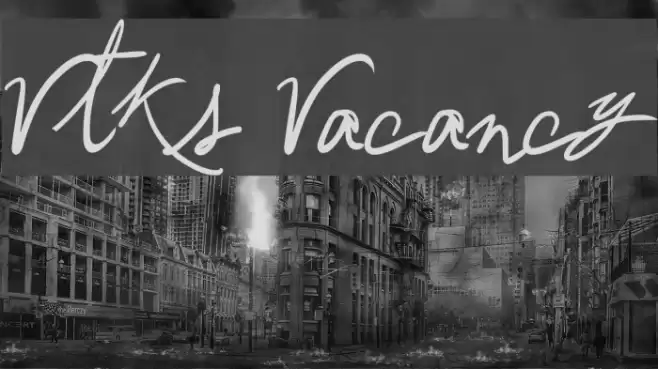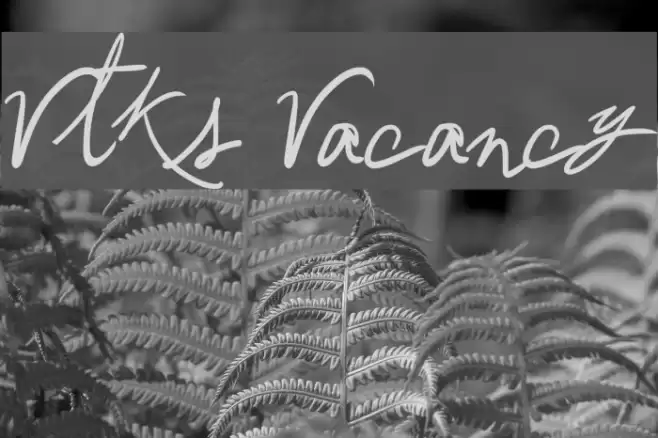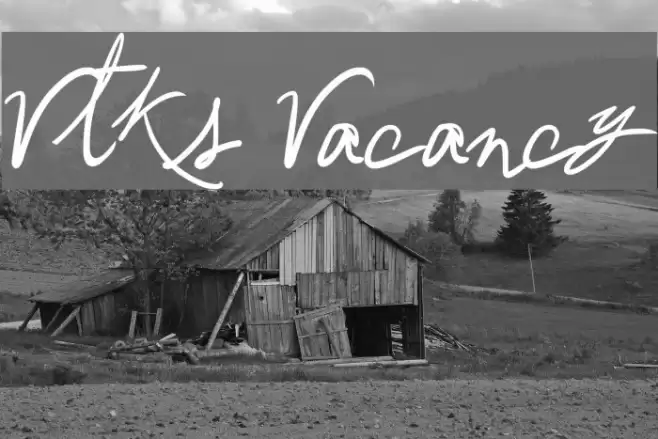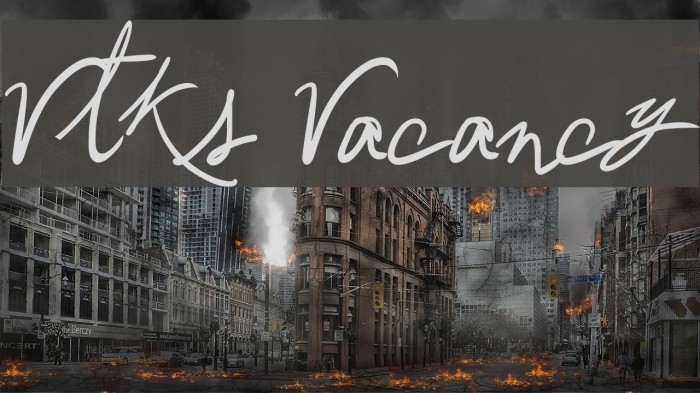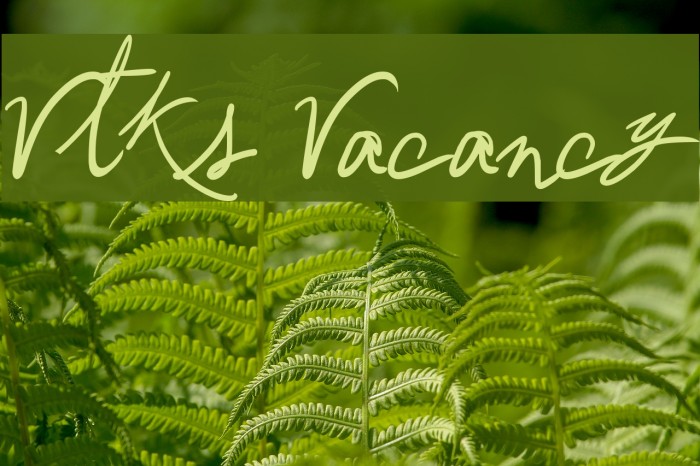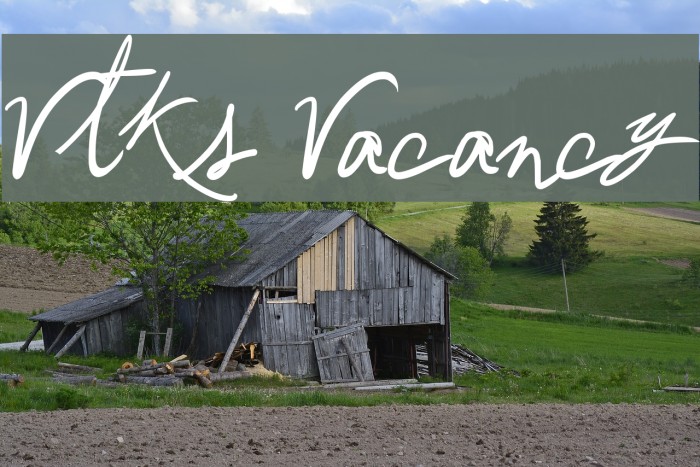
Vtks Vacancy Font
Vtks Vacancy Description
This font exudes a dynamic and expressive style, characterized by its fluid, handwritten appearance. The letters are crafted with a sense of motion, featuring elongated strokes and varying line thicknesses that create a lively and energetic feel. The uppercase letters are bold and prominent, while the lowercase letters maintain a consistent flow, enhancing the script-like quality. The overall design is both artistic and legible, making it suitable for creative projects that require a personal touch. The font's unique style is ideal for capturing attention and conveying a sense of individuality.
A dynamic, expressive handwritten font with fluid strokes and varying thickness.
- Proposed Projects: Ideal for invitations, greeting cards, branding, and artistic projects requiring a personal touch.
- Use Case: Logos, Headlines, Artistic projects